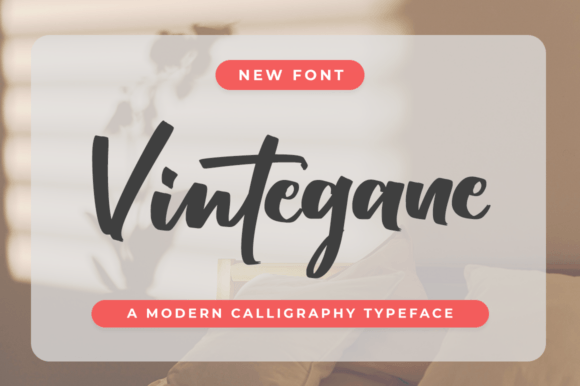
Vintegane Font: A Modern Script Font for Your Creative Projects
In the world of typography, fonts play a crucial role in conveying the tone and personality of a brand or design. Among the numerous fonts available, Vintegane Font stands out as a modern script font that can elevate your creative projects to the next level. In this article, we’ll explore the features and benefits of Vintegane Font, particularly its bold script variant, and discuss how it can be used to make your text look beautiful.
What is Vintegane Font?
Vintegane Font is a contemporary script font designed to add a touch of elegance and sophistication to your designs. Its unique and flowing lines make it perfect for a variety of projects, including branding, advertising, packaging, and more. The font’s creator has carefully crafted each letter to ensure that it is not only aesthetically pleasing but also highly legible.
Features of Vintegane Bold Script Font
The Vintegane Bold Script font is a variant of the Vintegane Font family that offers a range of features that make it ideal for creative projects. Some of its key features include:
- Unique Letterforms: Every single letter in the Vintegane Bold Script font has been carefully crafted to make your text look beautiful. The font features unique and flowing lines that give it a distinctive look.
- High Legibility: Despite its ornate design, the Vintegane Bold Script font is highly legible, making it suitable for use in a variety of contexts, from body text to headings.
- Modern Design: The Vintegane Bold Script font boasts a modern design that is perfect for brands and designers looking to create a contemporary look.
- Versatility: The font is versatile and can be used in a range of projects, from print materials to digital designs.
Benefits of Using Vintegane Font
Using Vintegane Font in your creative projects offers a range of benefits, including:
- Enhanced Visual Appeal: The font’s unique and flowing lines add a touch of elegance and sophistication to your designs, making them more visually appealing.
- Improved Brand Identity: Vintegane Font can help you create a distinctive brand identity that sets you apart from your competitors.
- Increased Legibility: The font’s high legibility ensures that your text is easy to read, making it perfect for use in body text and headings.
- Time-Saving: With Vintegane Font, you can save time and effort in creating custom lettering or typography from scratch.
Tips for Getting the Most Out of Vintegane Font
Here are some tips to help you get the most out of Vintegane Font:
- Use it for Headings: Vintegane Bold Script font is perfect for use in headings and titles, where its unique and flowing lines can add a touch of elegance and sophistication.
- Pair it with Other Fonts: Pair Vintegane Font with other fonts to create a unique and visually appealing typography combination.
- Experiment with Colors: Experiment with different colors to find the perfect match for your brand or design.
- Use it for Branding: Use Vintegane Font in your branding materials, such as logos, business cards, and letterheads, to create a distinctive and memorable brand identity.
In conclusion, Vintegane Font, particularly its bold script variant, is a modern script font that can elevate your creative projects to the next level. Its unique and flowing lines, high legibility, and versatility make it perfect for a variety of projects, from branding and advertising to packaging and more. By following the tips and guidelines outlined in this article, you can get the most out of Vintegane Font and create beautiful and effective designs that leave a lasting impression.